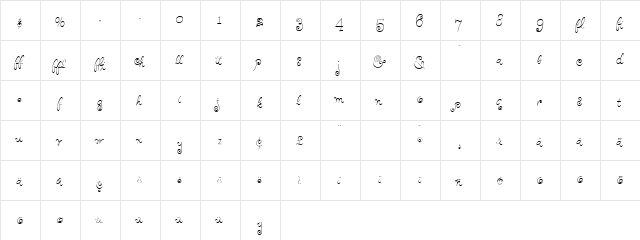
HairsprayLightAlts Regular
Design Context for HairsprayLightAlts Typeface
HairsprayLightAlts takes a measured approach to typography — its balanced proportions and neutral character make it a reliable workhorse for both digital and print work. Its slender proportions lend an understated elegance to any composition.